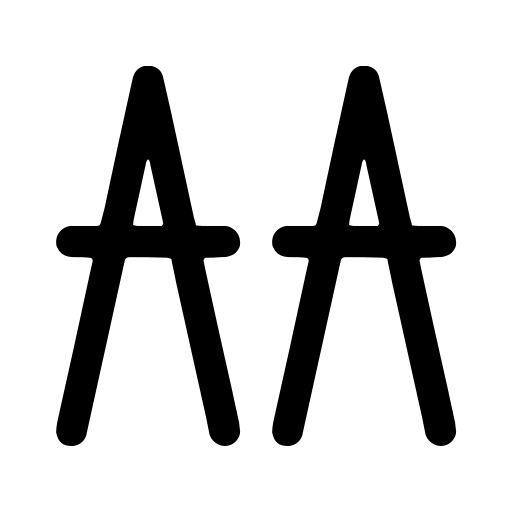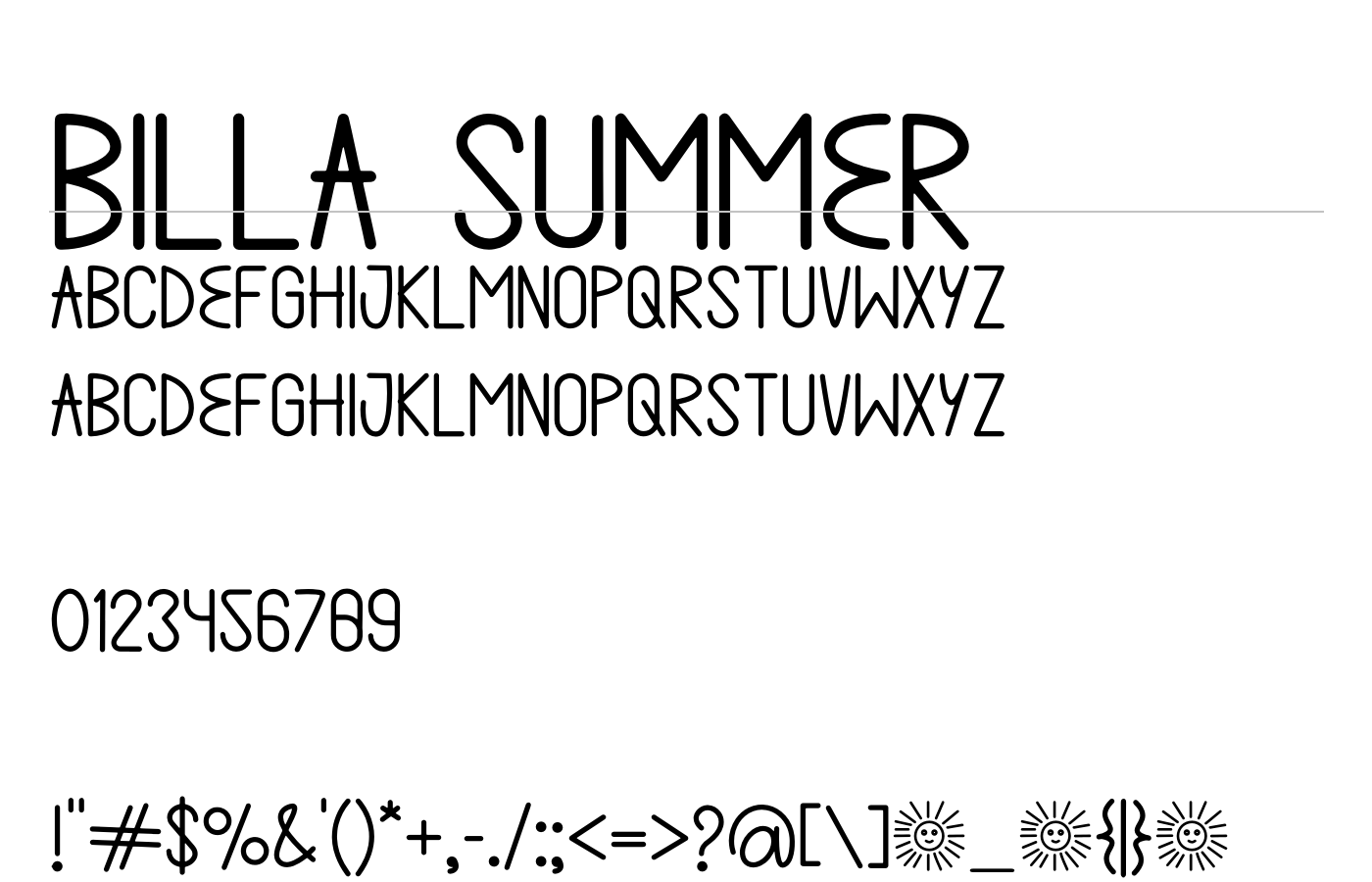
Billa Summer is a playful, condensed sans serif font with a lively, hand-drawn feel. Its tall, narrow letterforms and subtle irregularities give it a casual, approachable personality, making it ideal for fun, creative projects like posters, branding, and informal headings. The font’s clean, simple strokes keep it readable while adding a fresh, summery vibe perfect for youthful and vibrant designs.
Billa Summer Font
About Billa Summer Font
| Font family | Billa Summer Font |